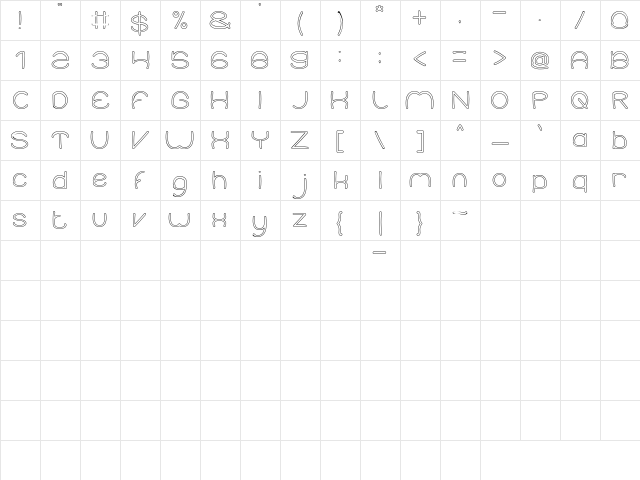
Elementary-Hollow Regular
Design Context for Elementary-Hollow Typeface
Elementary-Hollow offers clean, dependable letterforms without strong stylistic allegiance, making it a practical choice for designers who need flexibility.
Dating back to 2012, this typeface is available in OpenType (OTF) format.